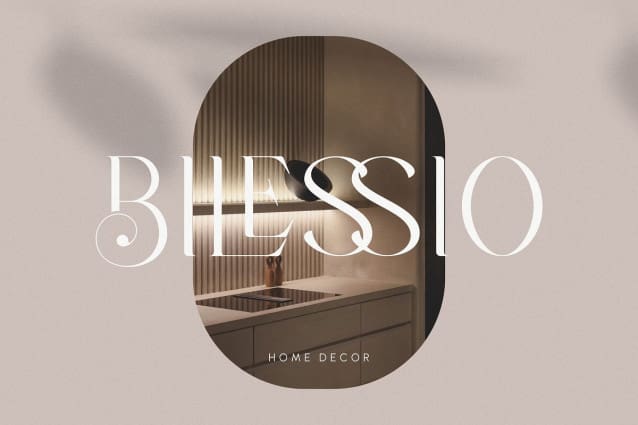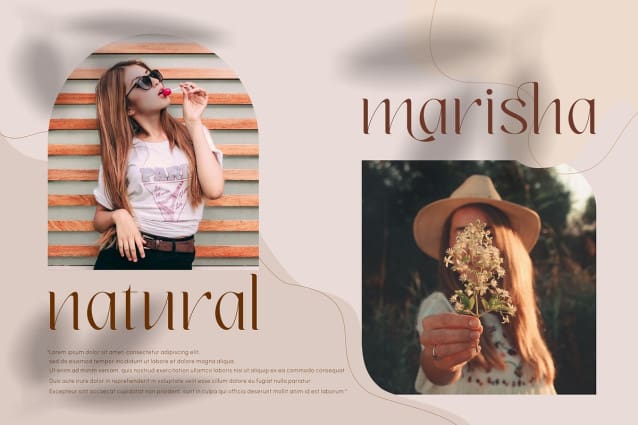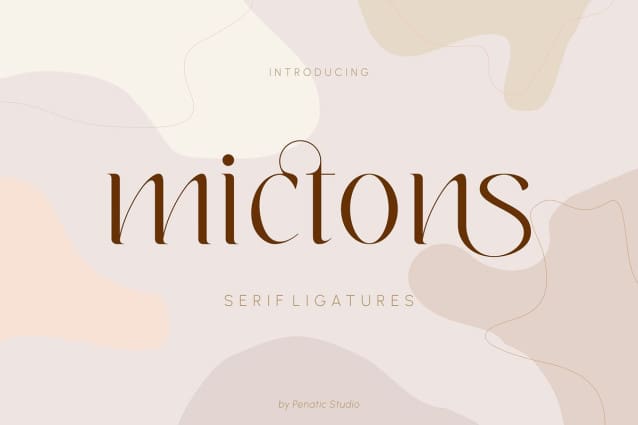
Mictons Font
Mictons Font is a clean, smooth typeface with a nice touch of ligature. This typeface has many alternates and ligature options, perfect for creating designs like packaging, logos, templates, quotes, branding and more.